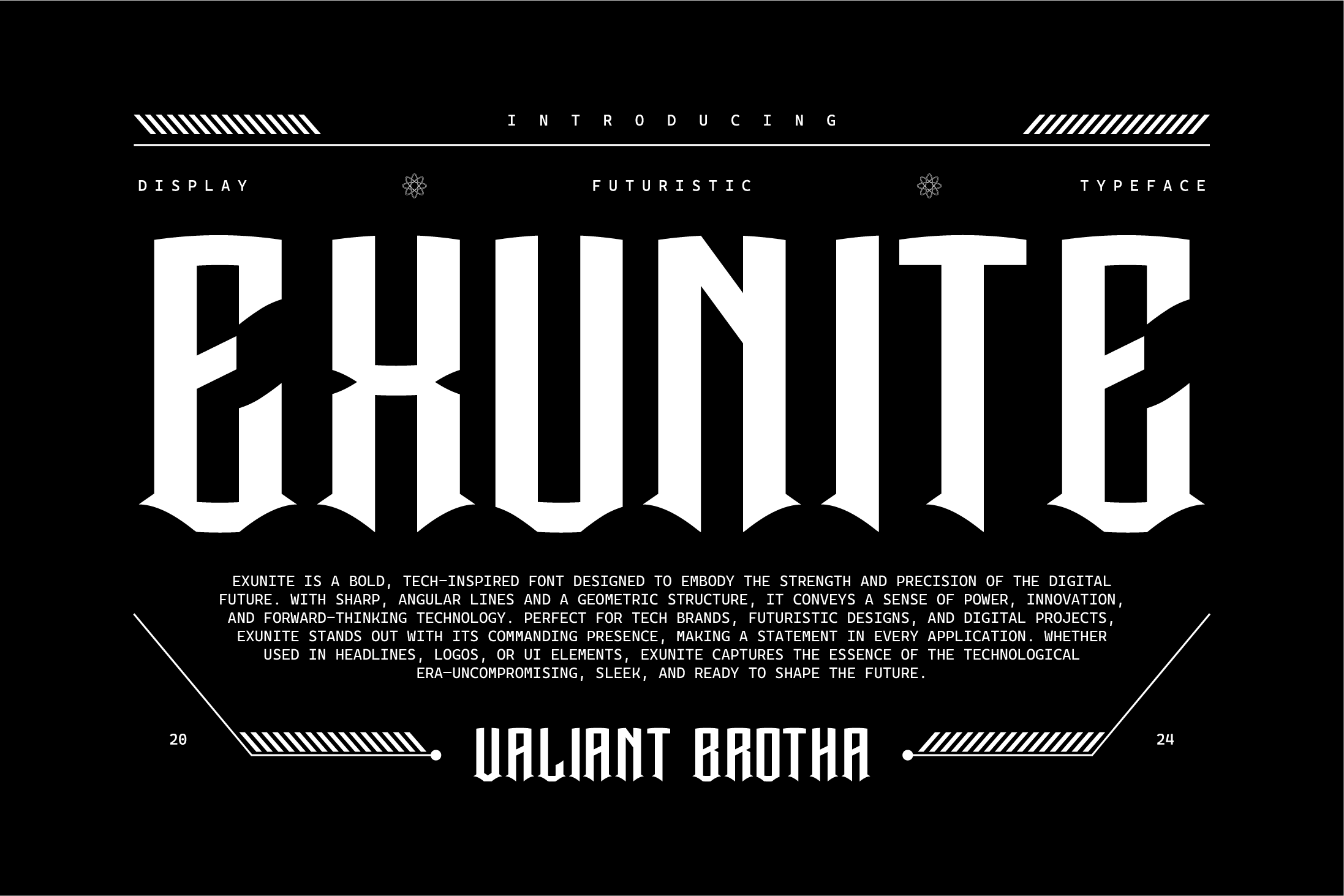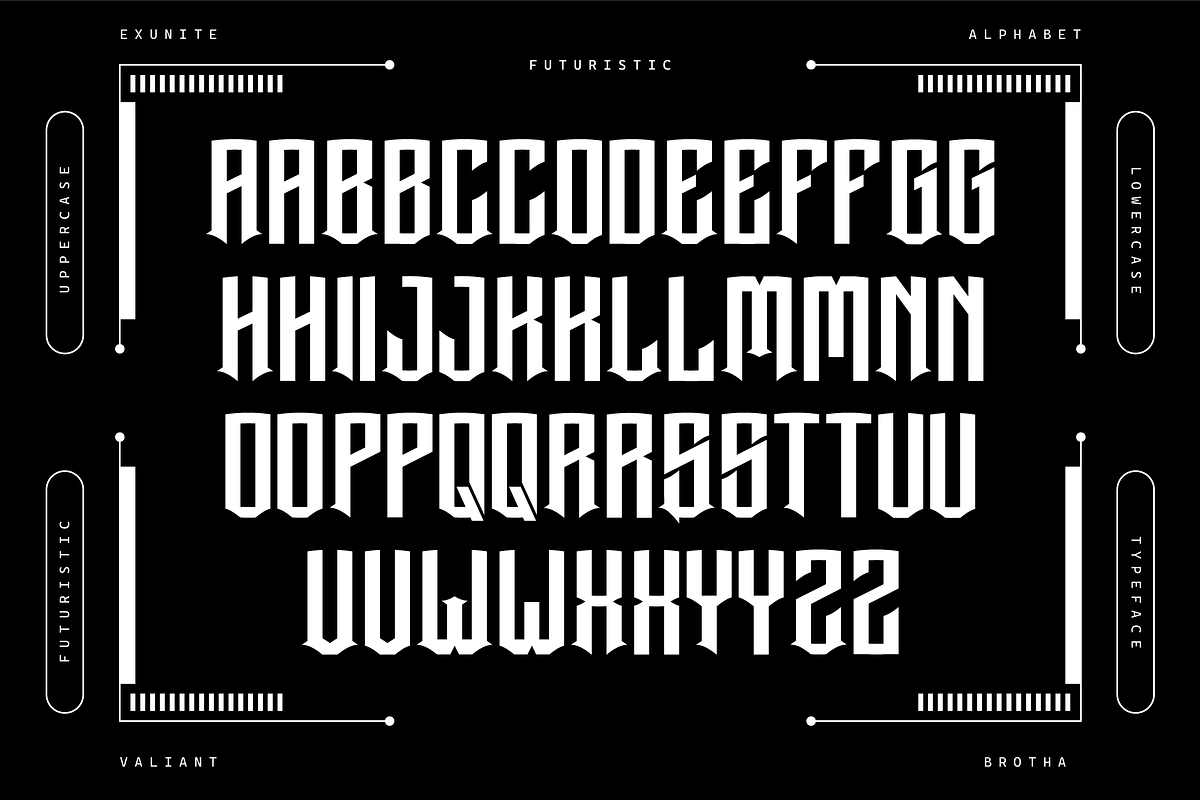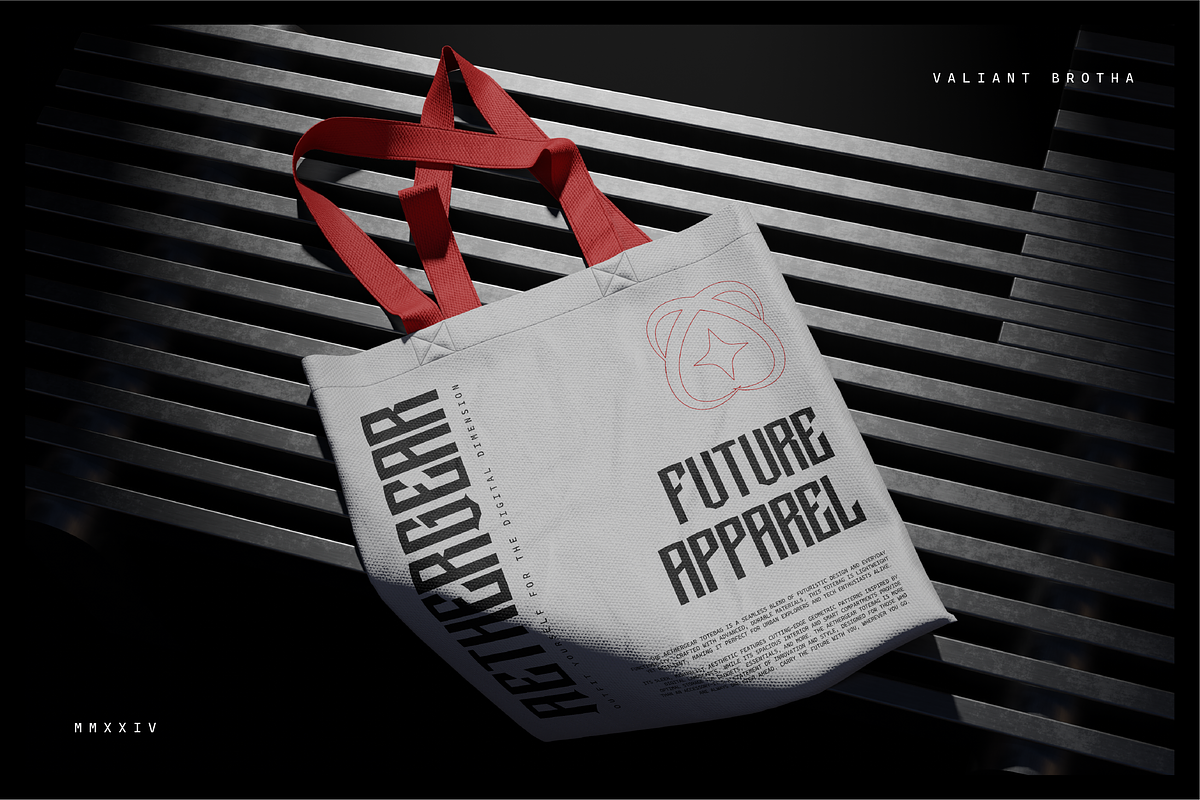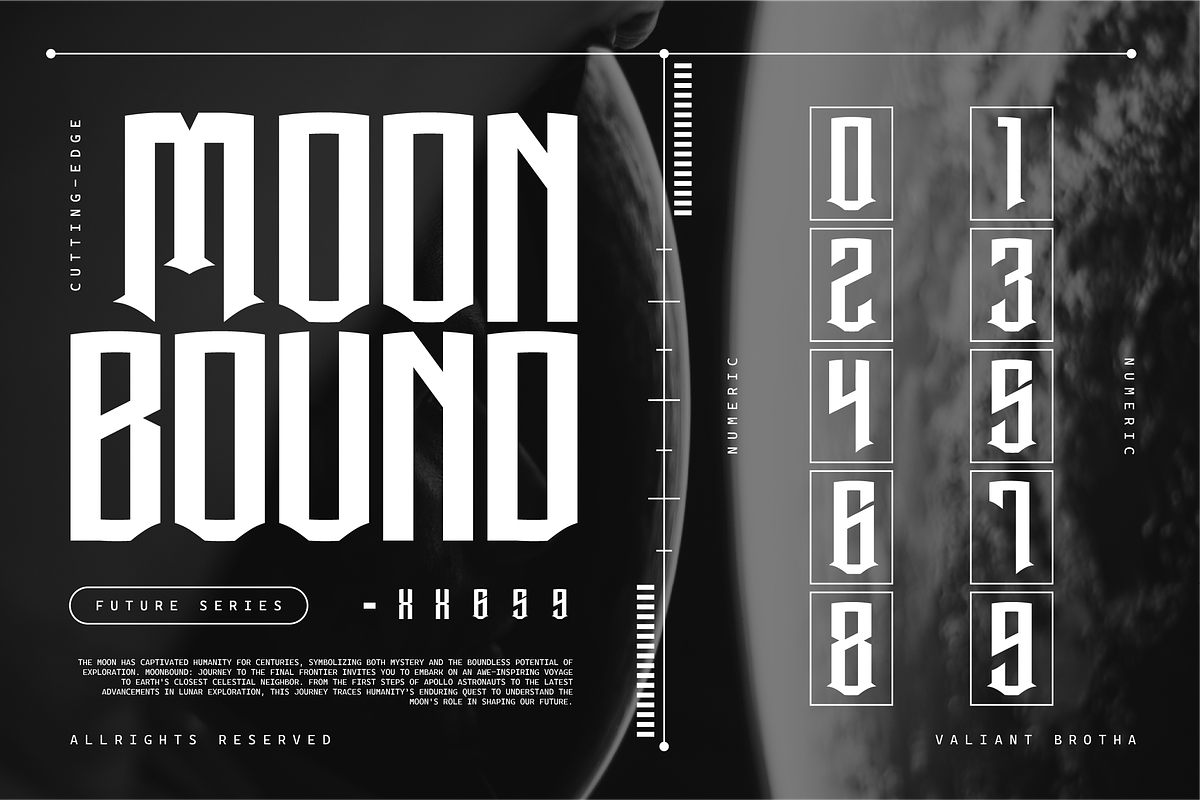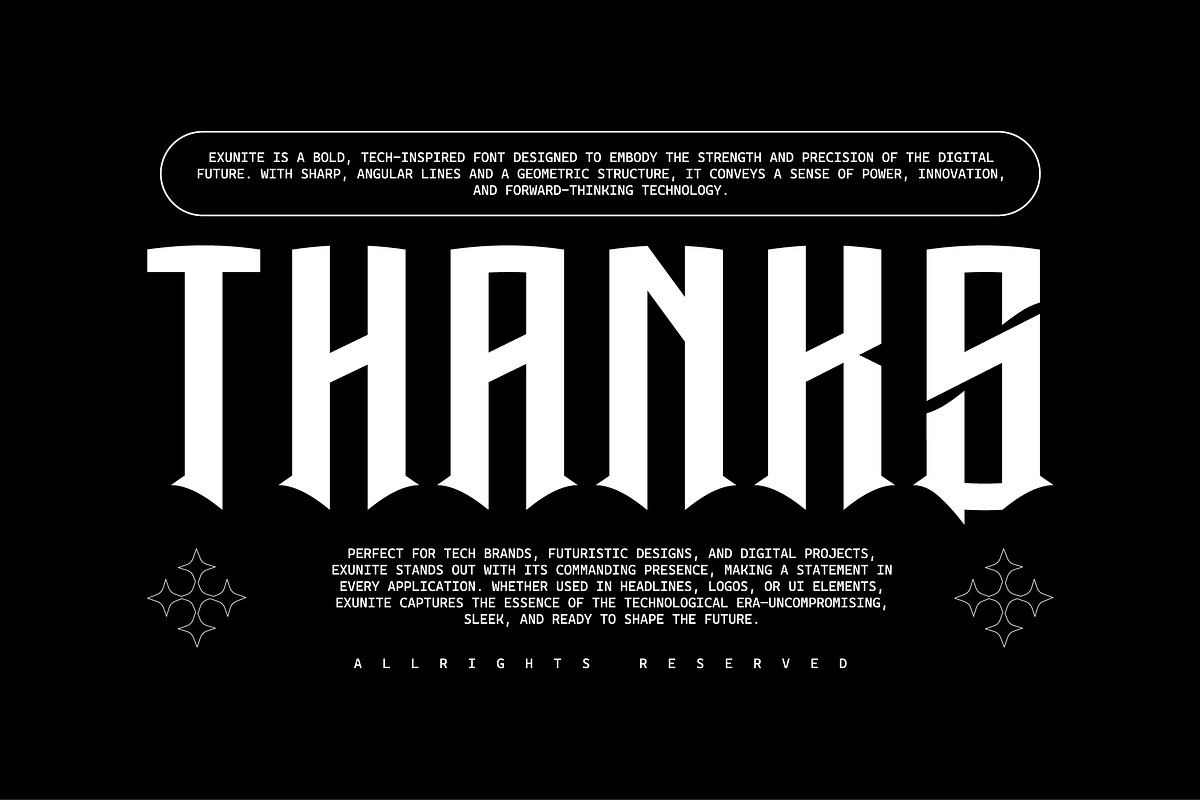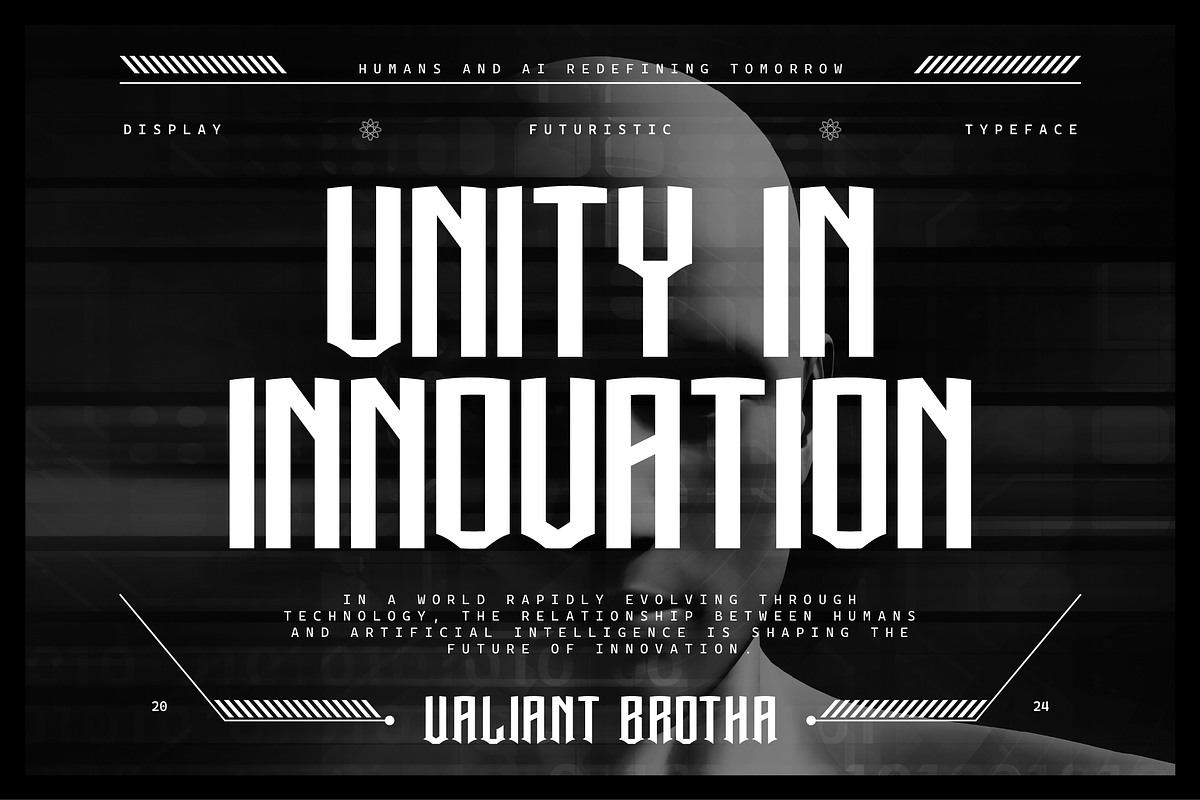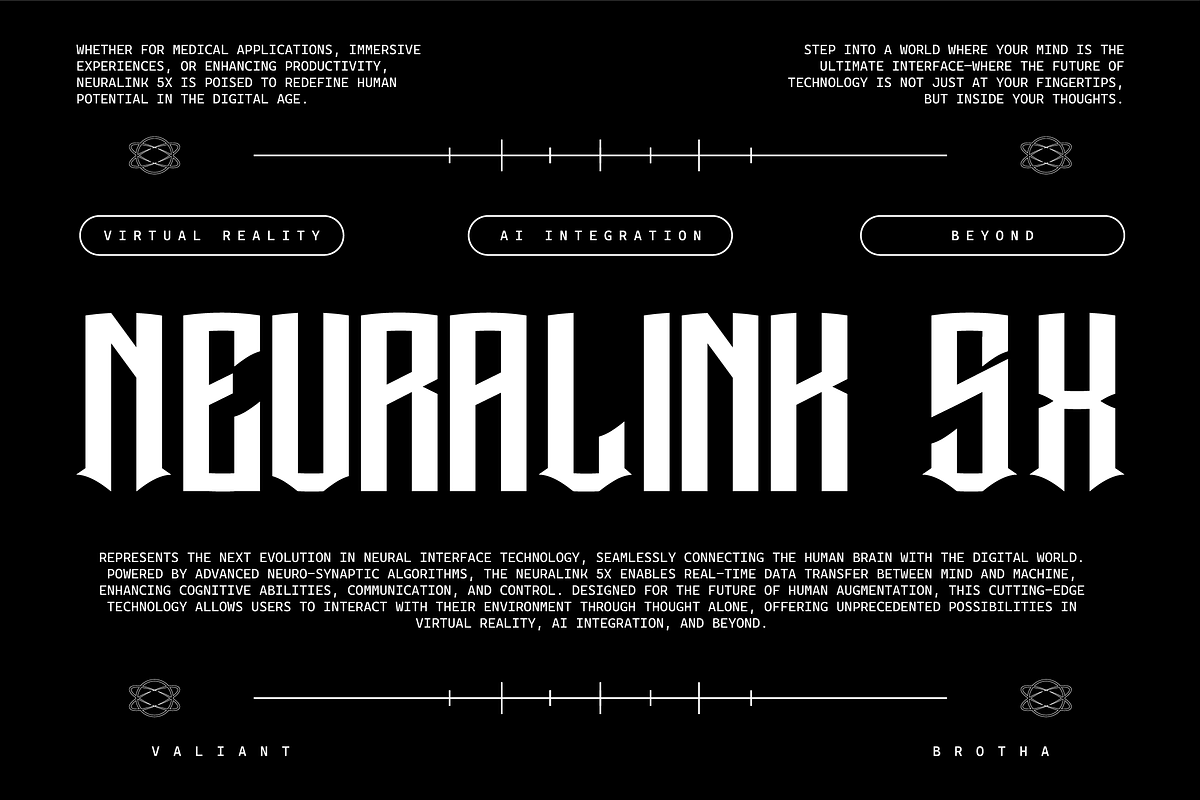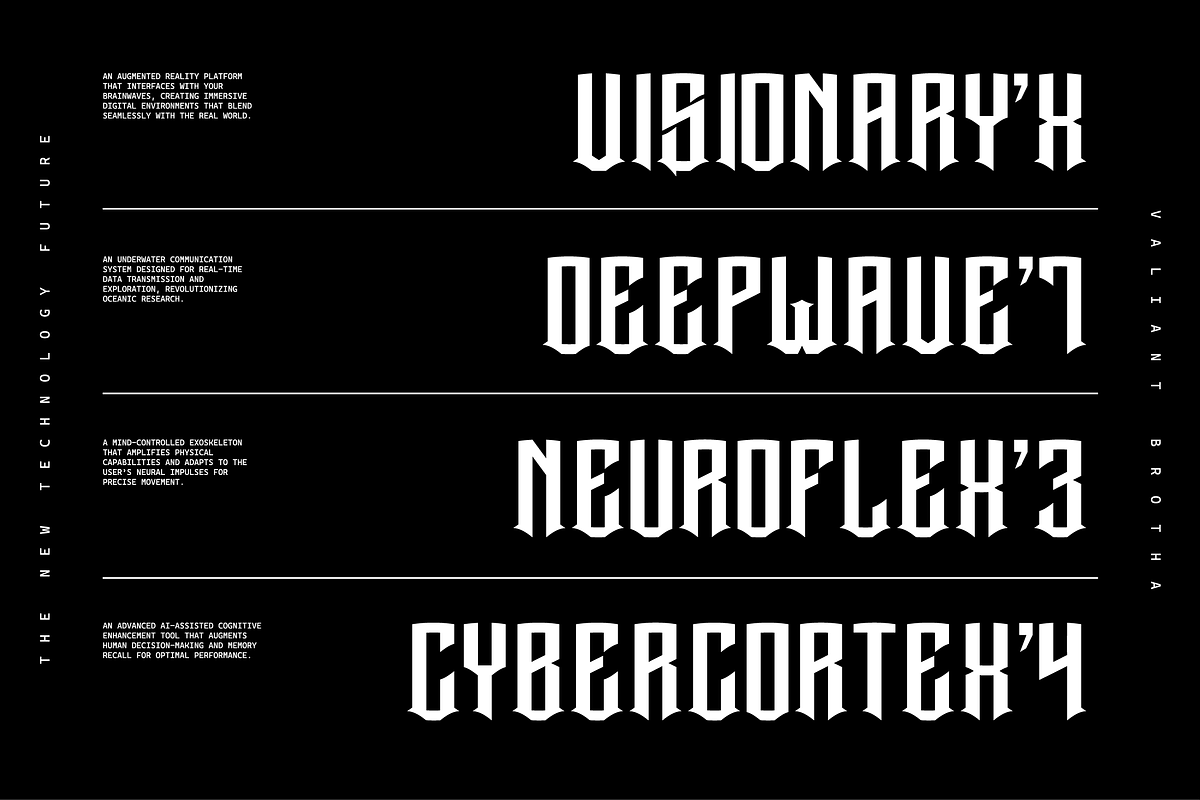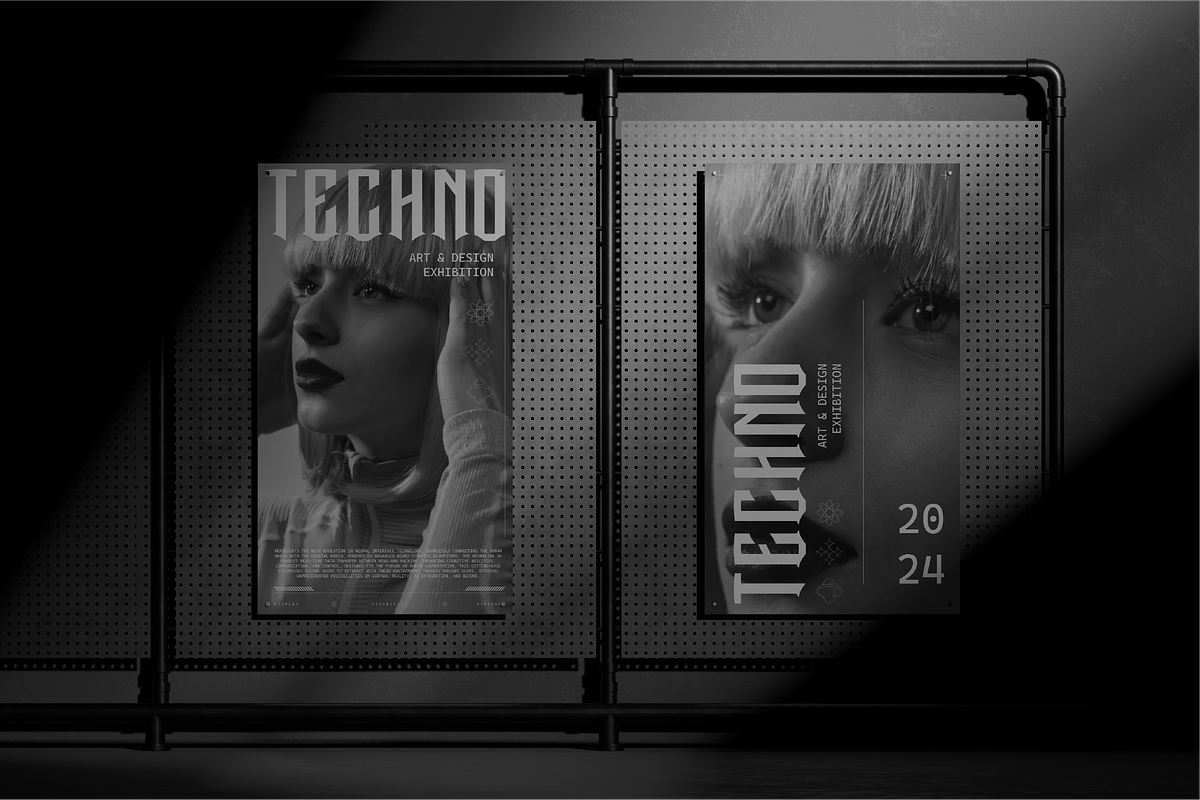
VB Exunite - Futuristic Font
Exunite is a bold, tech-inspired font designed to embody the strength and precision of the digital future. With sharp, angular lines and a geometric structure, it conveys a sense of power, innovation, and forward-thinking technology. Perfect for tech brands, futuristic designs, and digital projects, Exunite stands out with its commanding presence, making a statement in every application. Whether used in headlines, logos, or UI elements, Exunite captures the essence of the technological era—uncompromising, sleek, and ready to shape the future.